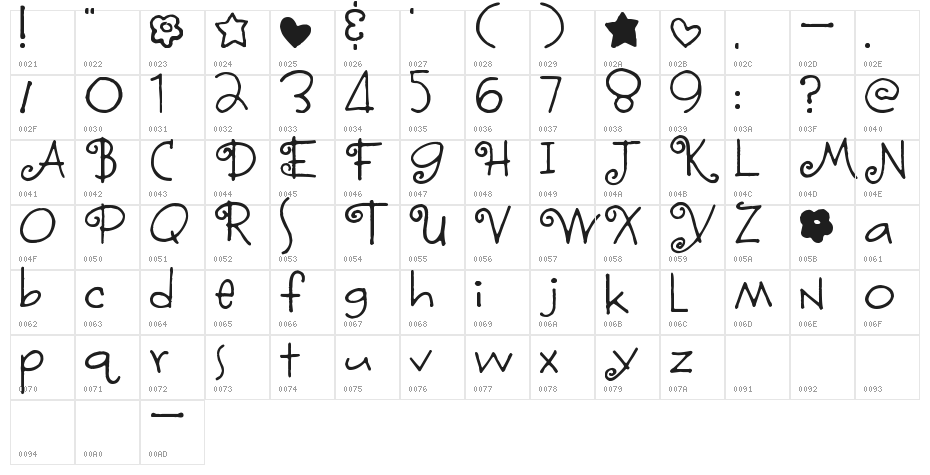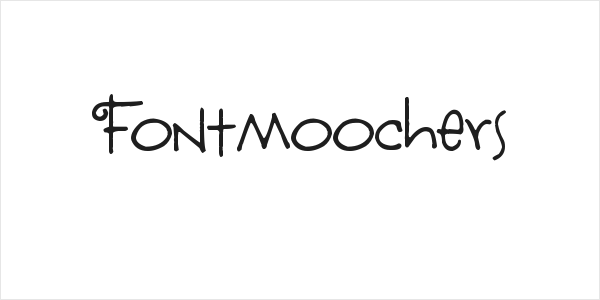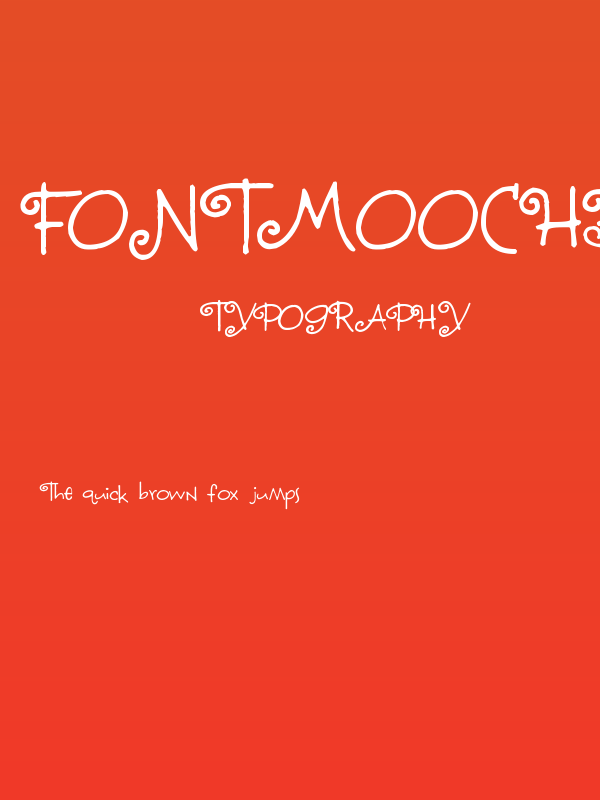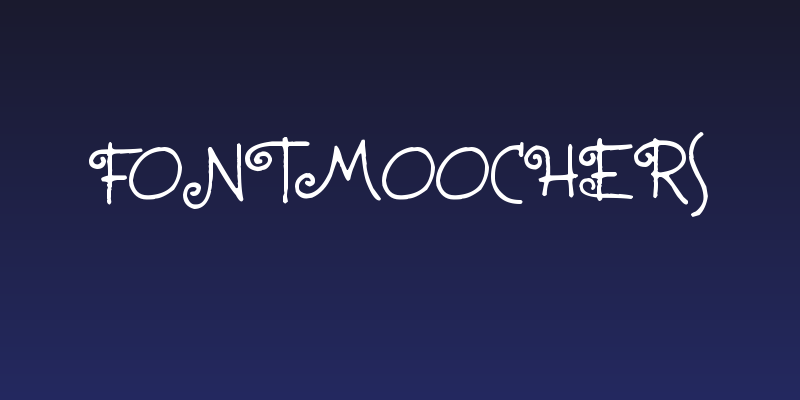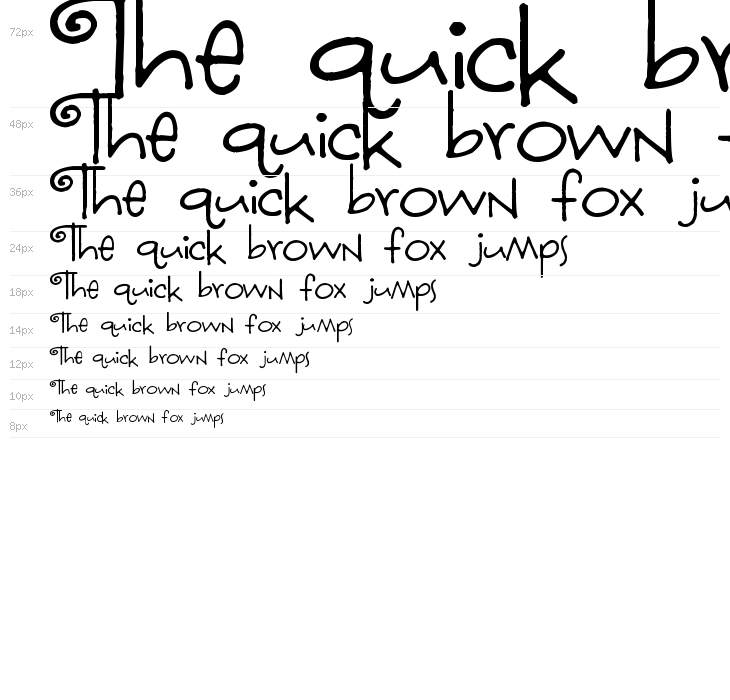
Fontmoochers Font
Fontmoochers Description
This whimsical and playful font features a unique blend of decorative elements and casual script style. The uppercase letters are adorned with charming swirls and curls, adding a touch of whimsy to each character. The lowercase letters maintain a casual, handwritten feel, providing a friendly and approachable appearance. The numerals are bold and slightly rounded, ensuring readability while maintaining the font's playful nature. Special characters include delightful symbols like stars, hearts, and flowers, enhancing the font's decorative appeal. This font is perfect for projects that require a fun and lighthearted touch, such as children's books, greeting cards, and playful branding materials.
| Overall Style | Playful, Whimsical, Decorative |
| Use Case | Headlines, Logos, Decorative text |
| Proposed Projects | Ideal for children's books, greeting cards, playful branding, and decorative projects. |